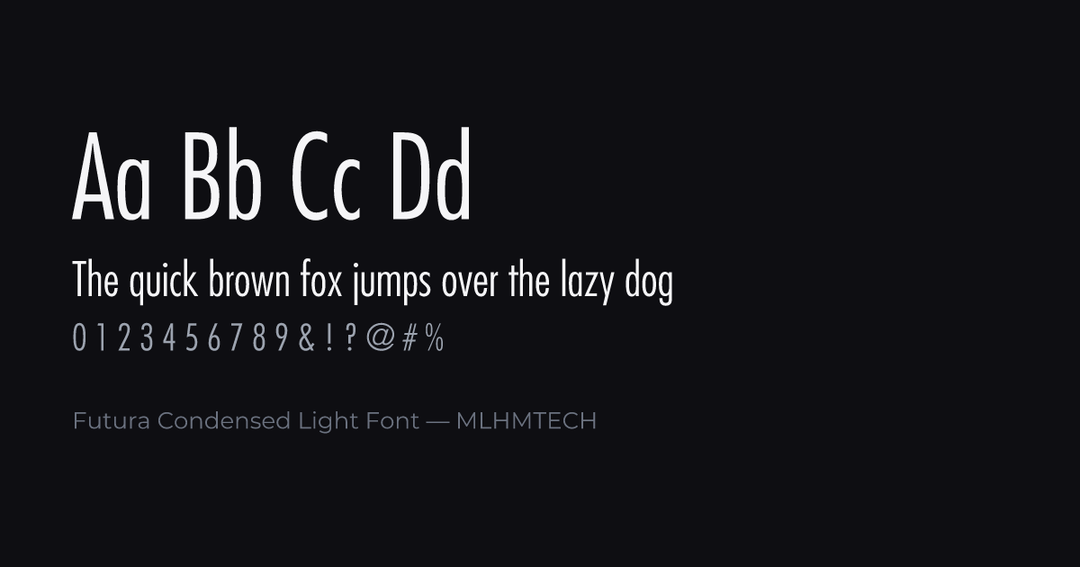
Futura Condensed Light Font
Futura Condensed Light is a geometric sans-serif font with a sleek, modern look. Ideal for headlines, titles, and branding in video and design projects.
Futura Condensed Light is a classic geometric sans-serif typeface that brings a clean, modern aesthetic to any project. Its condensed letterforms and light weight make it perfect for elegant headlines, stylish titles, and contemporary branding.
Whether you're working on a corporate video, a fashion film, or a minimalist logo, Futura Condensed Light will elevate your design with its timeless appeal.